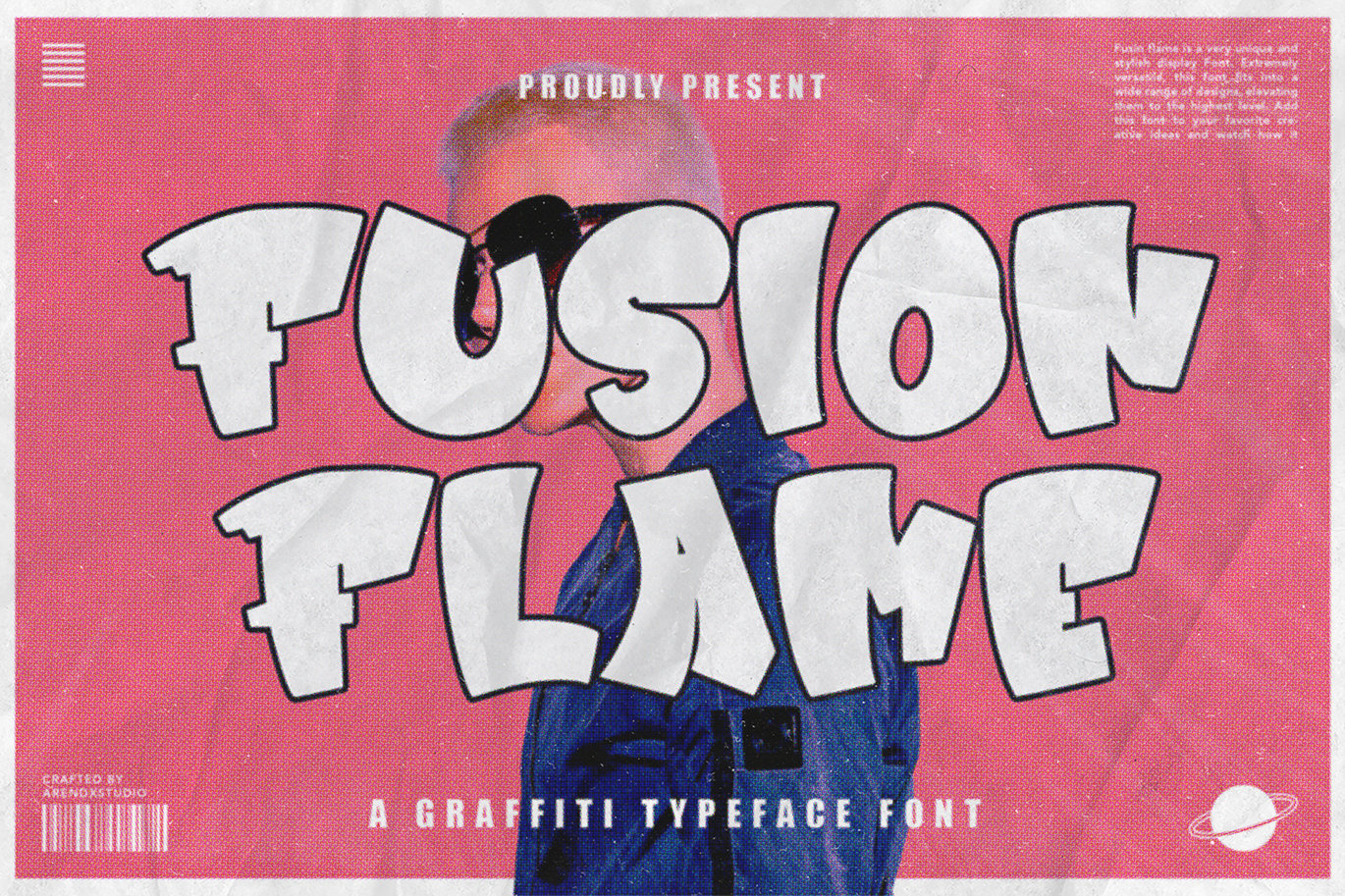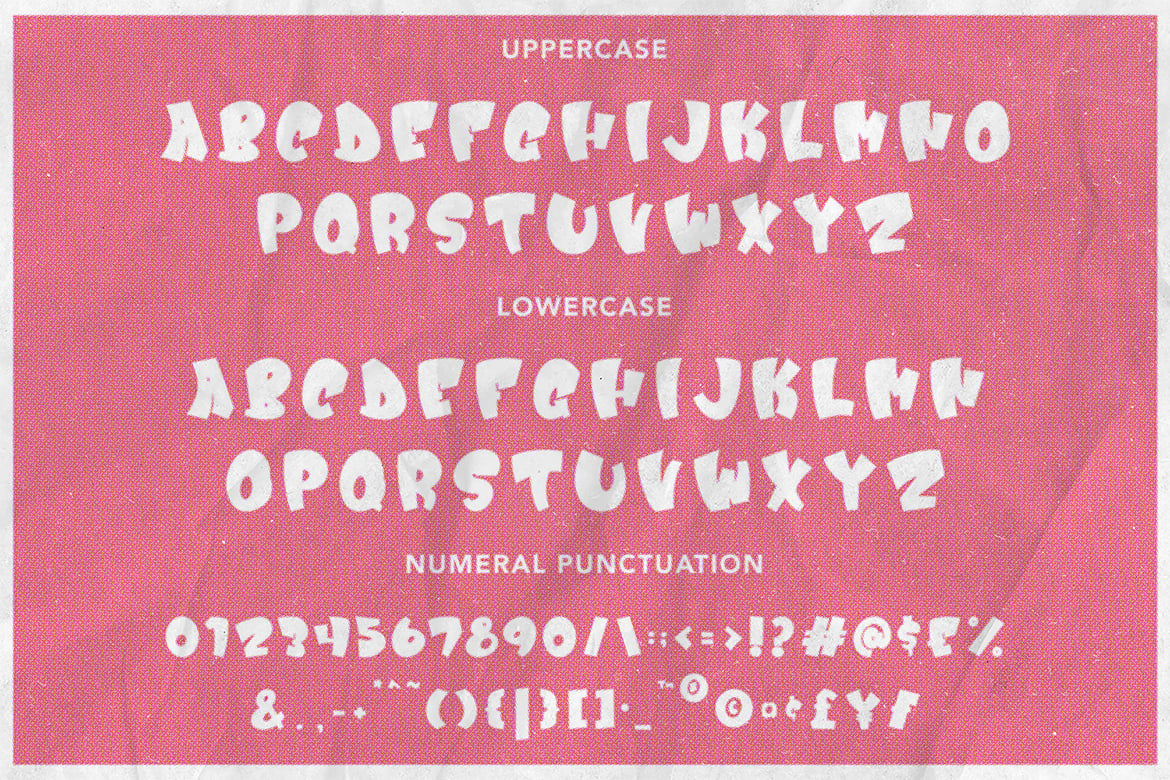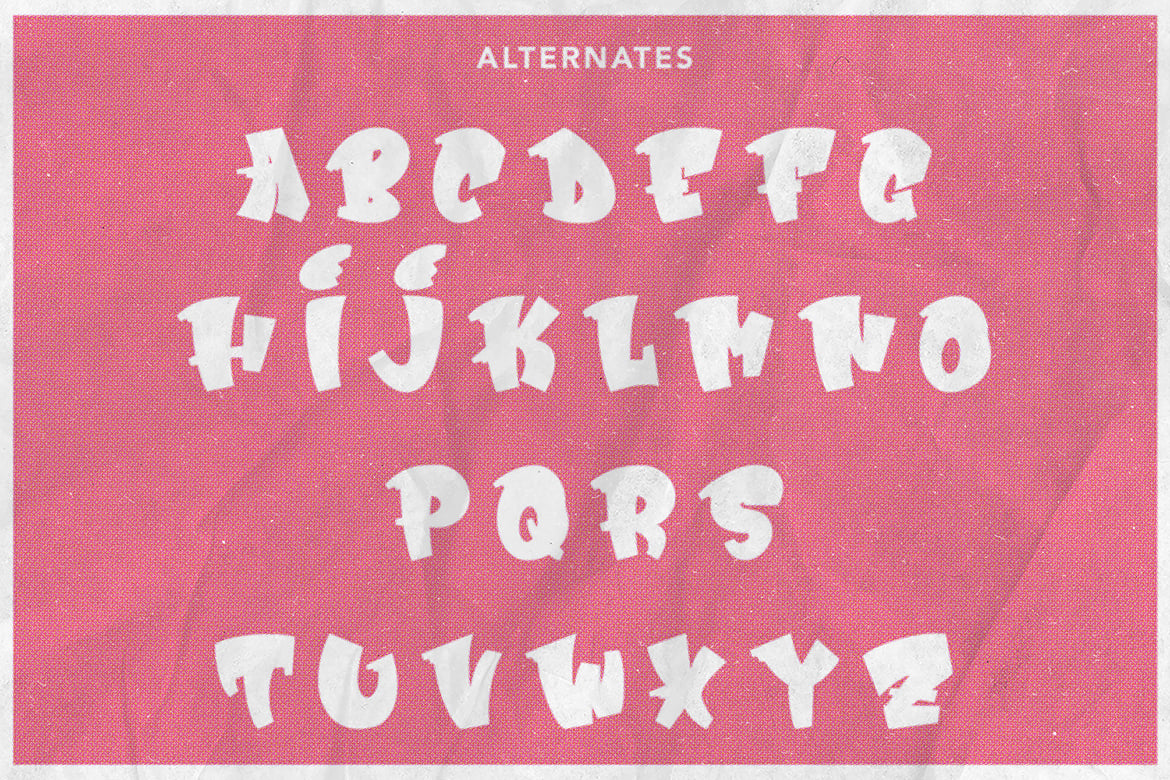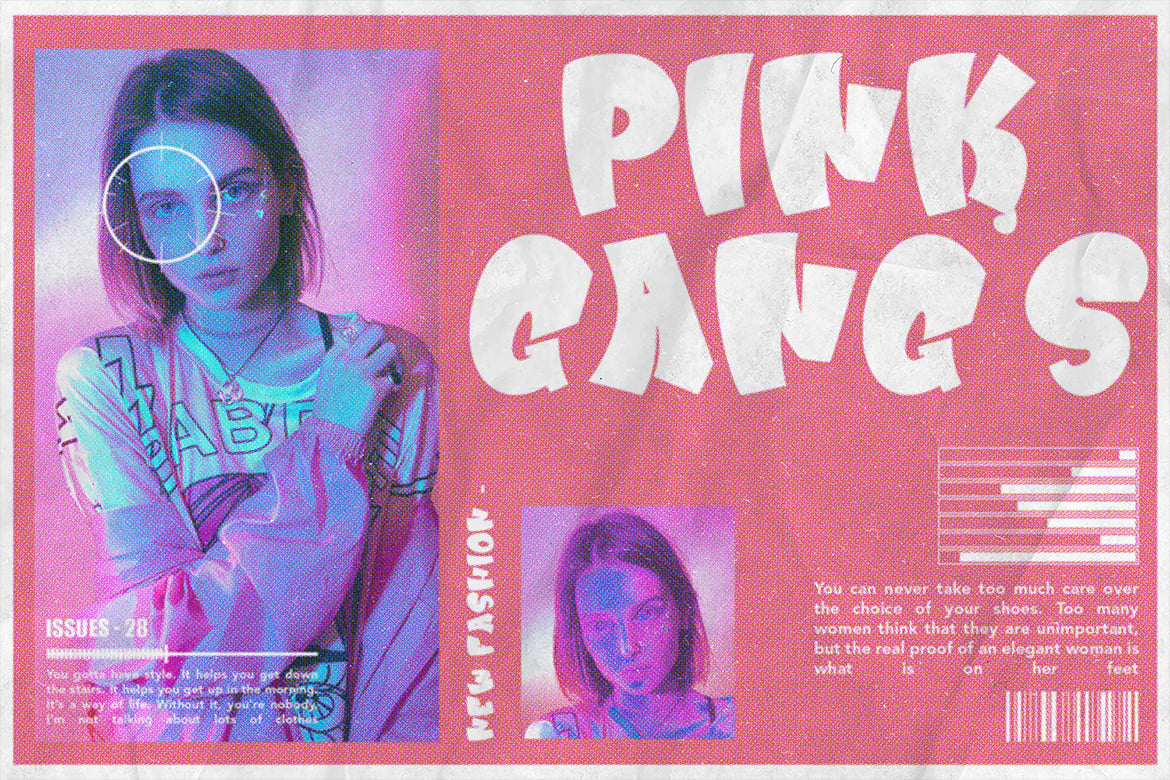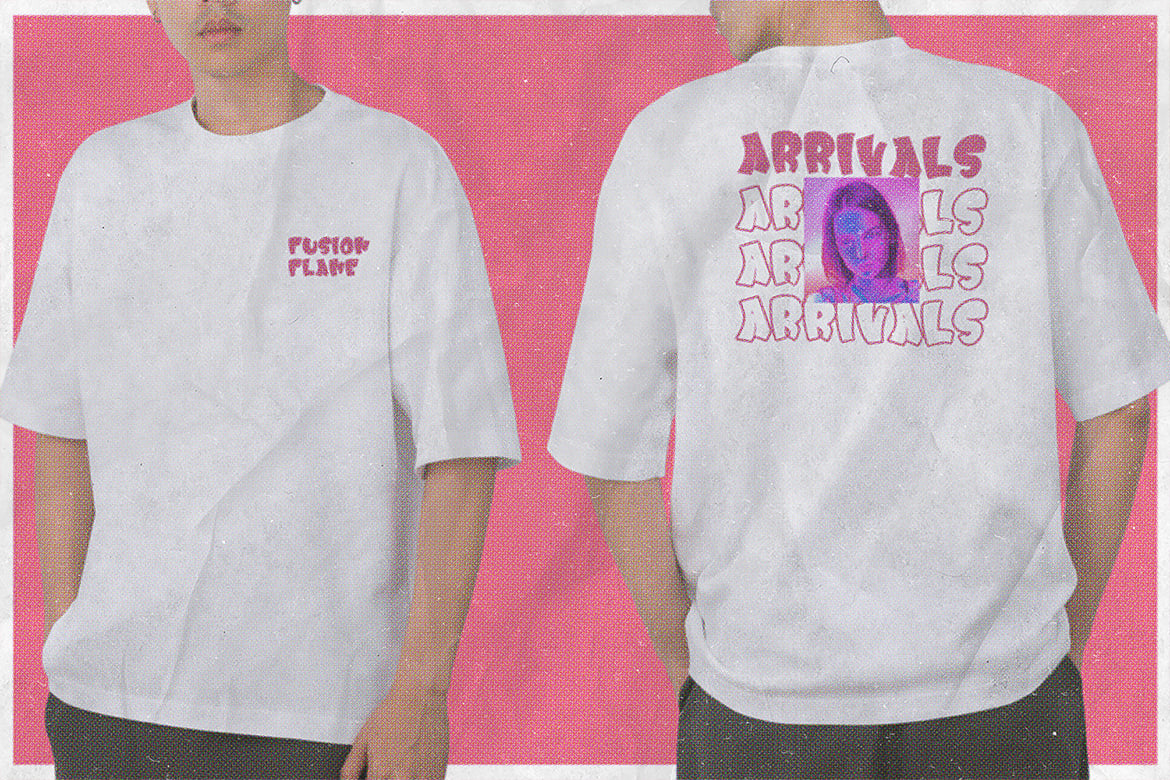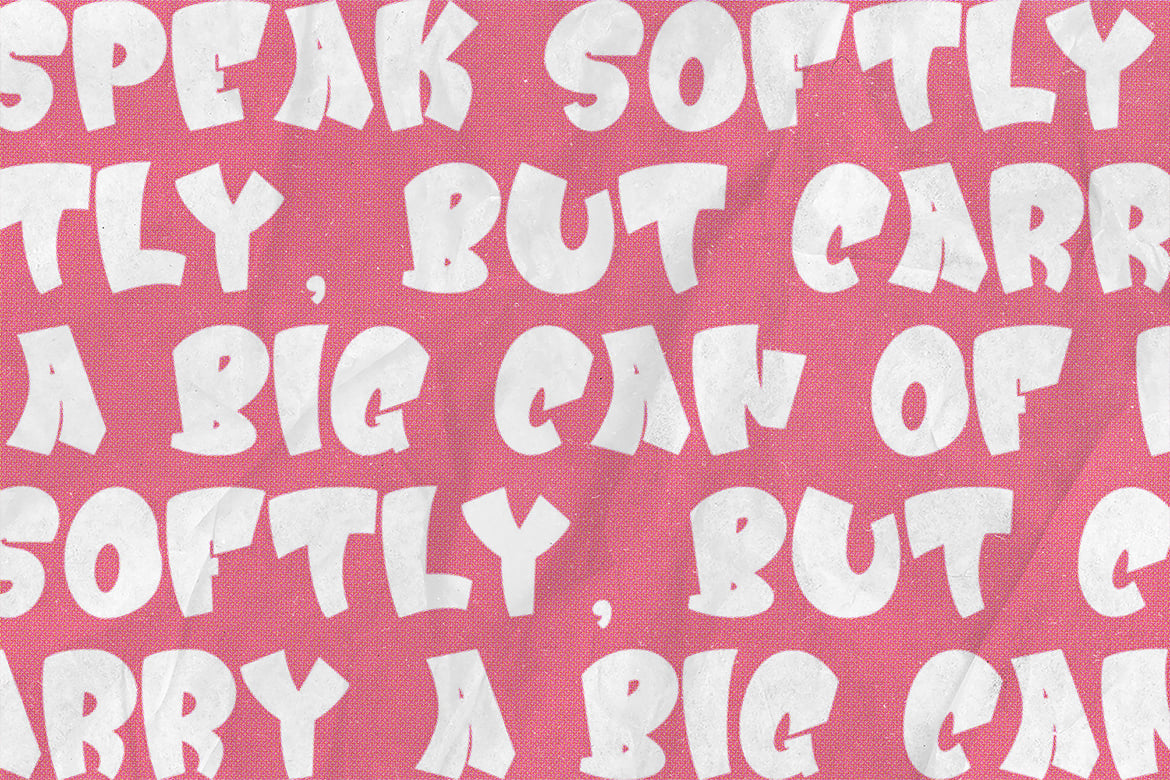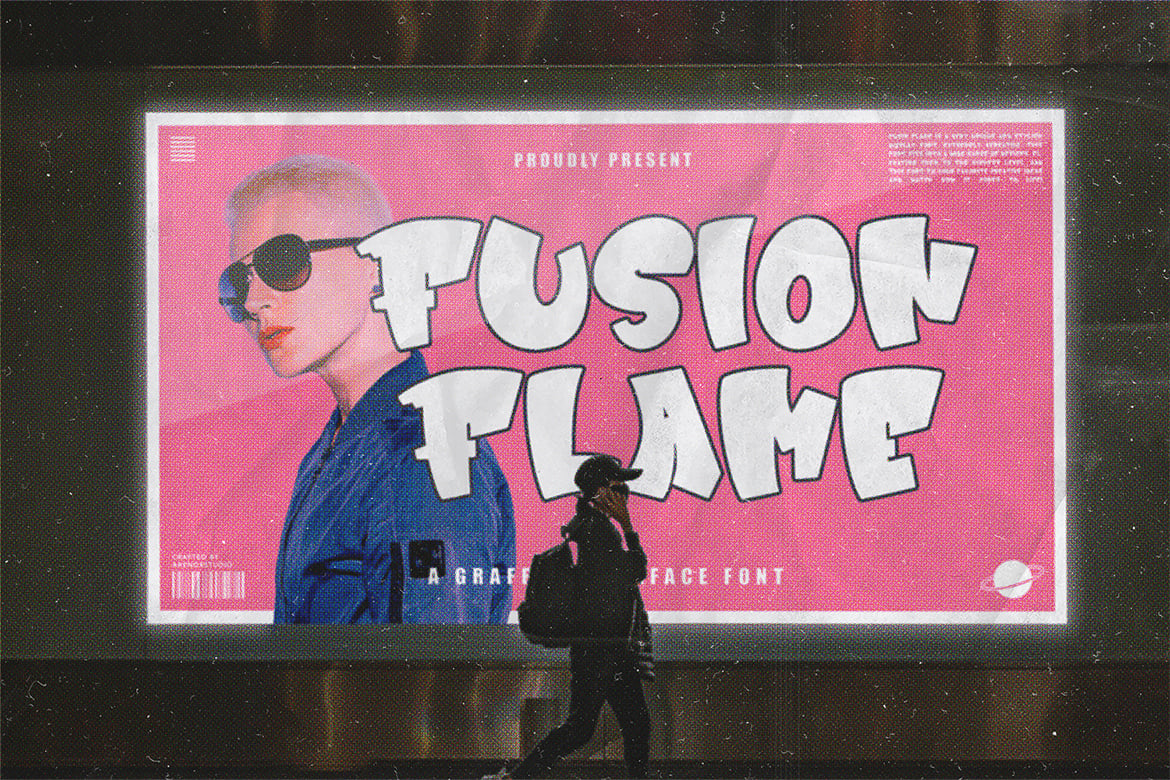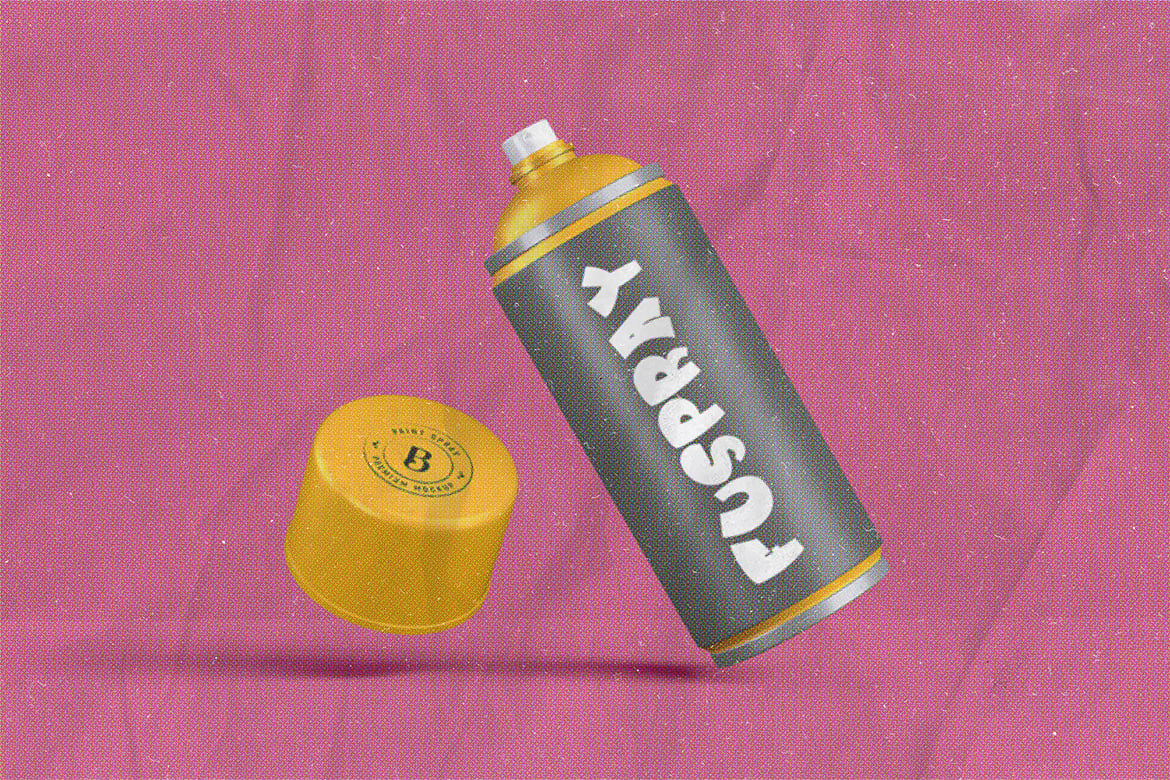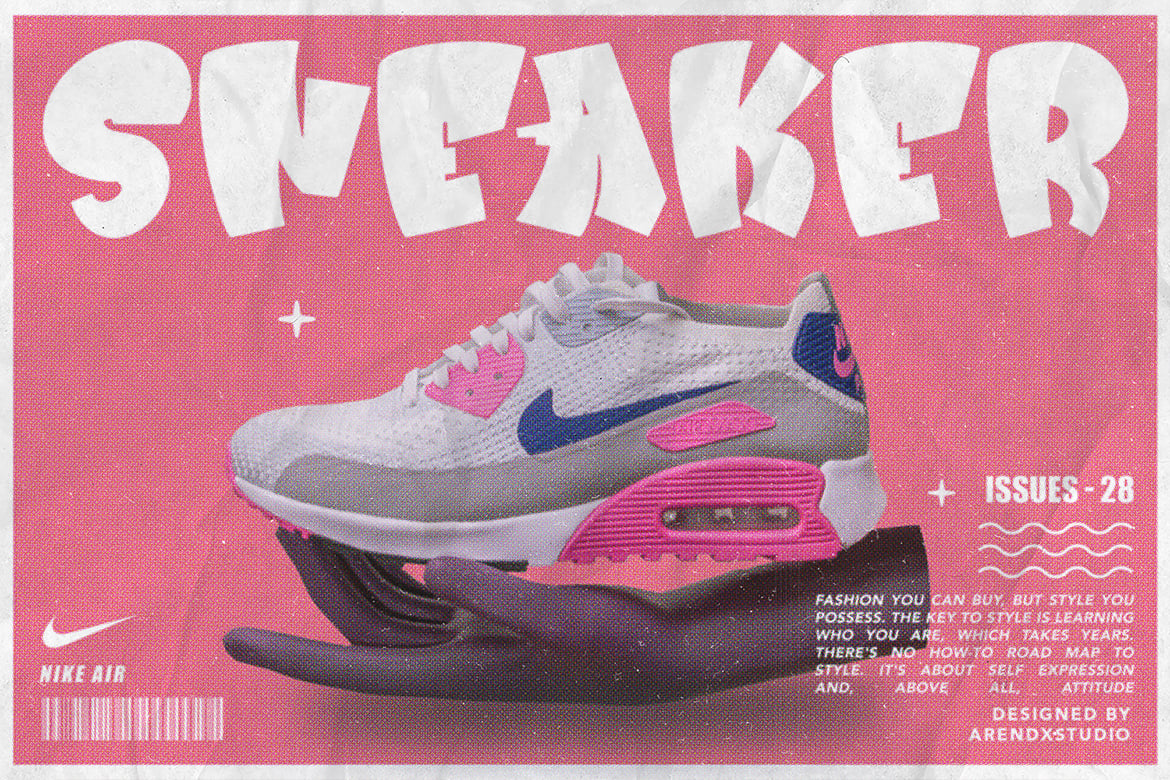
Fusion Flame – Graffiti Display Font
Fusion Flame – Graffiti Display Font is a free style font that has the characteristics of street art that shows freedom and is filled with unique characters